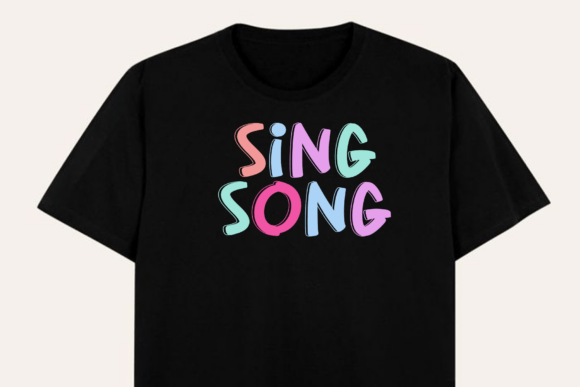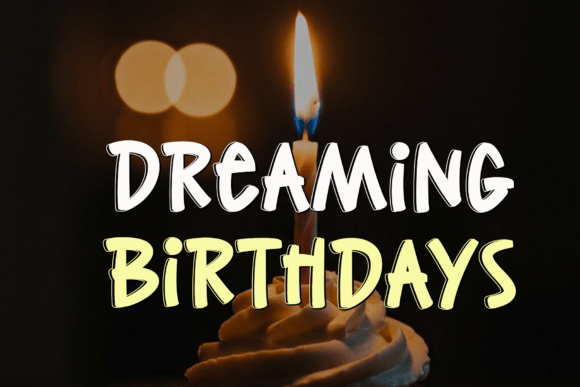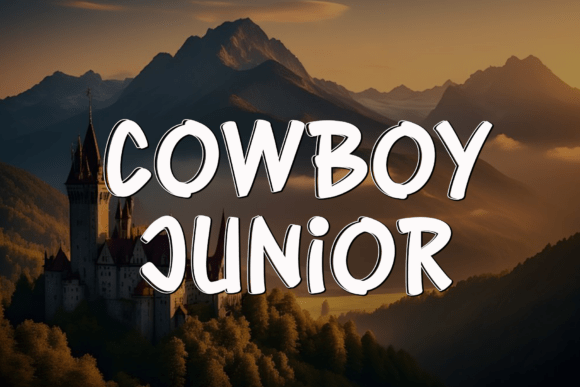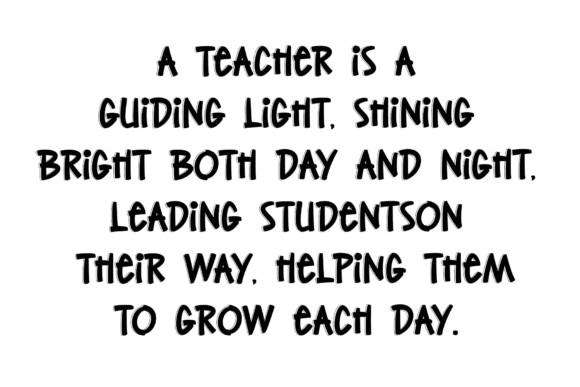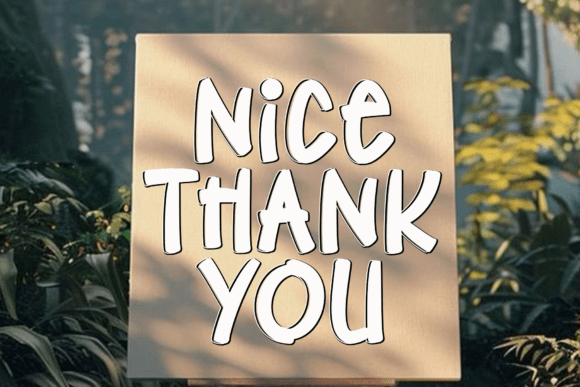
The Brother Sister Font: A Dramatic Handwritten Display Font for Your Creative Projects
Have you ever been in the middle of a design project, and suddenly, you’re stuck on finding the perfect font? I recall a recent experience where I was working on a custom greeting card for a family milestone, and I just couldn’t find a font that captured the warmth and personality I was looking for. That’s when I stumbled upon the Brother Sister font, and it completely transformed my design.
A Personal Review: What I Love About Brother Sister
The Brother Sister font is a bold and expressive handwritten display font that has become a staple in my design toolkit. Here’s what I love about it:
- ✨ Unique Flared Style: The font features a distinctive flared style with thick vertical strokes and sweeping horizontals, giving it a confident and heartfelt appearance.
- ✅ Perfect for Family-Themed Designs: The Brother Sister font is ideal for family-themed designs, personalized gifts, custom greeting cards, and strong titles.
- ✅ Charismatic and Genuine: This typeface adds a charismatic, genuine, and impactful handwritten touch to any project.
While I adore the Brother Sister font, there are a few minor quirks to be aware of:
- 🤔 Limited Use in Body Text: Due to its bold and expressive nature, the Brother Sister font might not be the best choice for body text. It’s better suited for titles, headings, or emphasis.
- ⚠️ Glyph Limitations: As with any font, there might be limitations in terms of glyphs or special characters. Be sure to review the font’s capabilities before using it in a project.
The Brother Sister font was inspired by the designer’s desire to create a typeface that exudes warmth, confidence, and a sense of family. With its unique flared style and sweeping horizontals, this font is perfect for designers who want to add a personal touch to their work.
Q: What type of projects is the Brother Sister font best suited for?
A: The Brother Sister font is ideal for family-themed designs, personalized gifts, custom greeting cards, strong titles, and any project that requires a charismatic, genuine, and impactful handwritten touch.
Q: Is the Brother Sister font available in different weights or styles?
A: The Brother Sister font is available in a single weight, but its unique flared style and OpenType features provide flexibility and versatility in design.